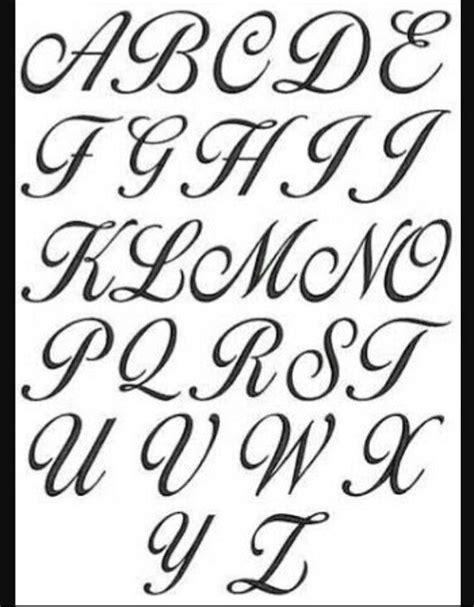
Teenager Handwriting Font / Glossy - A Handwritten Script Font By KA Designs ... : As the name suggests, handwritten fonts are fonts that look like they were written by hand, usually with a pen or marker.. Browse and download handwriting fonts and generate images from custom text with handwriting fonts. This font is a simple handwriting font, based off of greg's handwriting in diary of a wimpy kid. Download free handwritten fonts for commercial and personal use. Browse by alphabetical listing, by style, by author or by popularity. Download 10,000 fonts with one click for $19.95.
This font is a simple handwriting font, based off of greg's handwriting in diary of a wimpy kid. The best selection of handwriting fonts for windows and macintosh. In the age of social media and smartphones, probably, there are people, who have never heard about handwritten letters. Looking for cute handwriting teen fonts? Download free handwritten fonts for commercial and personal use.
Lindsey pro bold was created by steve matteson based on a teenager's handwriting. Atakana handwriting font script by afkari studio kanatype.com. More free fonts from kevin & amanda at free scrapbook fonts! Archive of freely downloadable fonts. Browse by alphabetical listing, by style, by author or by popularity. Santoy is a truly charming hand lettering font that's perfect for use on projects such as greeting cards, invitations and even as the. .calligraphy, but fonts that emulate common, everyday handwriting while still remaining legible for most uses. Added by shyann44 (1 style).
Santoy is a truly charming hand lettering font that's perfect for use on projects such as greeting cards, invitations and even as the.
The best selection of handwriting fonts for windows and macintosh. Our handwritten fonts are an opportunity to address personal and loving issues. Browse a unique collection of the best handwritten fonts and thousands of free typefaces to download. The child's handwriting font contains 236 beautifully designed characters. Every font is free to download! Looking for cute handwriting teen fonts? Browse by alphabetical listing, by style, by author or by popularity. The victor handwriting font has a truly handwritten feel; Actually, the least thing you think of when you want to. If you like handwriting fonts, you'll love these scrapbooking fonts! Old slavic alphabets and new fonts. The uneven letters (with bold and thinner this would be a great choice for any designs targeted towards teenagers (particularly female. Why you should learn cursive handwriting | spencerian script, how to write cursive letters.
Old slavic alphabets and new fonts. Licensed for personal and commercial use. Why you should learn cursive handwriting | spencerian script, how to write cursive letters. Our handwritten fonts are an opportunity to address personal and loving issues. Browse and download handwriting fonts and generate images from custom text with handwriting fonts. .calligraphy, but fonts that emulate common, everyday handwriting while still remaining legible for most uses. Download the best free handwritten fonts, that are hand picked collections by our editorial experts and can be canales script font is a beautiful signature brush script font with an exclusive original style. Download these free handwriting fonts, including free cursive fonts.
If you want to learn the trick to making your handwriting into pretty hand lettering so you can address a card or write on a.
This font is a simple handwriting font, based off of greg's handwriting in diary of a wimpy kid. Download these free handwriting fonts, including free cursive fonts. Handwriting fonts bring a new artistry to fonts, as they are actually based on people's individual handwriting. The child's handwriting font contains 236 beautifully designed characters. Licensed for personal and commercial use. In the age of social media and smartphones, probably, there are people, who have never heard about handwritten letters. Within that broad category you'll find a range of styles that reflects the variations. Atakana handwriting font script by afkari studio kanatype.com. These teacher fonts help students learn both print and cursive writing. 20 great free handwriting fonts. Ready to personalize and share in facebook and twitter. Searching for more handwriting fonts? Lindsey pro bold was created by steve matteson based on a teenager's handwriting.
This font is a simple handwriting font, based off of greg's handwriting in diary of a wimpy kid. Old slavic alphabets and new fonts. Handwriting fonts bring a new artistry to fonts, as they are actually based on people's individual handwriting. The essentially endless variations provide an opportunity for real individualization. Download these free handwriting fonts, including free cursive fonts.
Download and install free handwritten fonts of the best quality from free fonts and use on your own personal and business related design purposes. Licensed for personal and commercial use. As the name suggests, handwritten fonts are fonts that look like they were written by hand, usually with a pen or marker. More free fonts from kevin & amanda at free scrapbook fonts! 20 great free handwriting fonts. The child's handwriting font contains 236 beautifully designed characters. See more ideas about handwriting fonts, lettering. Browse a unique collection of the best handwritten fonts and thousands of free typefaces to download.
Old slavic alphabets and new fonts.
The best selection of handwriting fonts for windows and macintosh. Added by shyann44 (1 style). Why you should learn cursive handwriting | spencerian script, how to write cursive letters. Ready to personalize and share in facebook and twitter. Santoy is a truly charming hand lettering font that's perfect for use on projects such as greeting cards, invitations and even as the. Atakana handwriting font script by afkari studio kanatype.com. The essentially endless variations provide an opportunity for real individualization. ✓ click to find the best 30 free fonts in the cute handwriting teen style. Browse a unique collection of the best handwritten fonts and thousands of free typefaces to download. Handwriting fonts bring a new artistry to fonts, as they are actually based on people's individual handwriting. If you want to learn the trick to making your handwriting into pretty hand lettering so you can address a card or write on a. Looking for cute handwriting teen fonts? This font is a simple handwriting font, based off of greg's handwriting in diary of a wimpy kid.